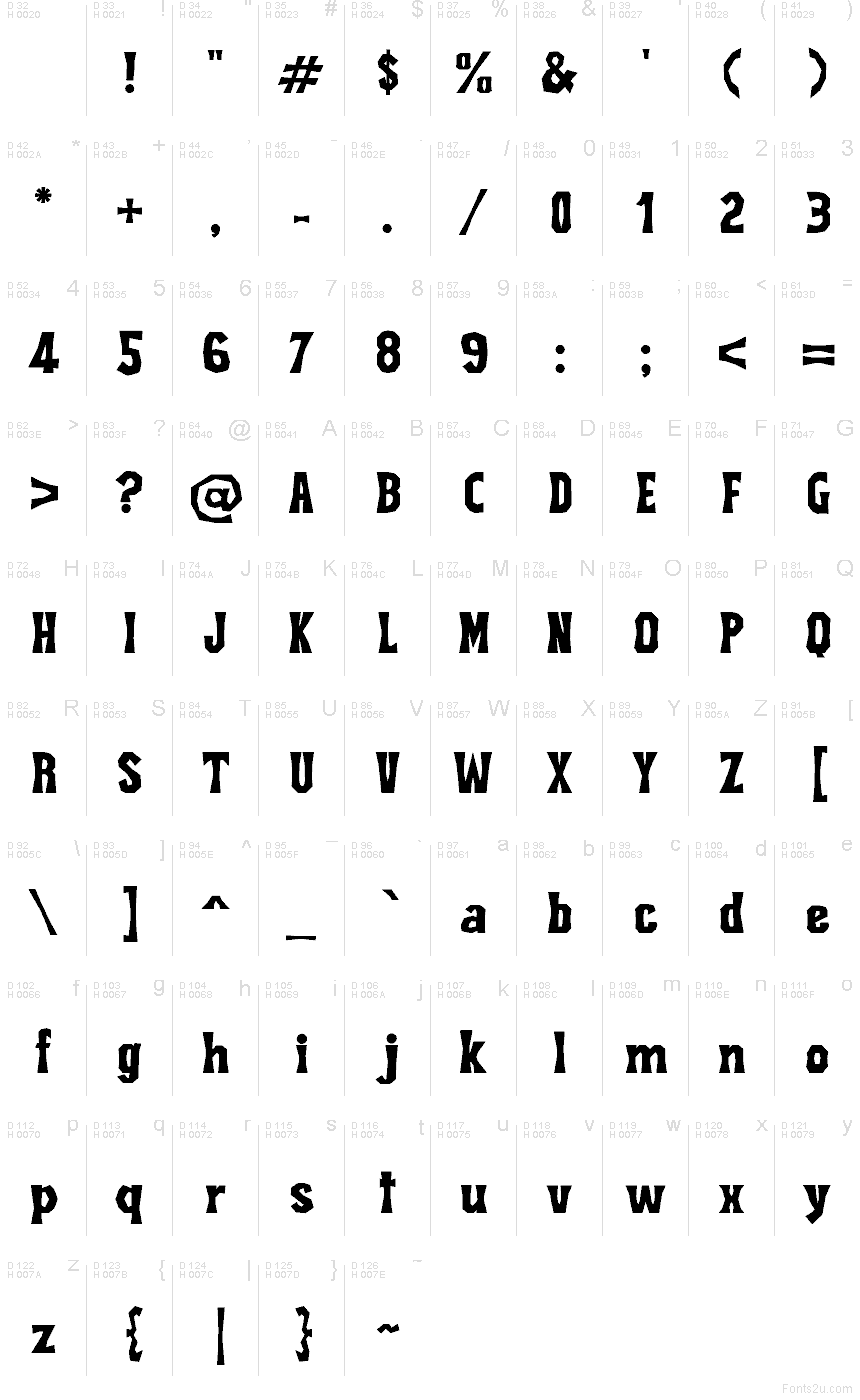
Cartoon in Adventure Regular
Cartoon in Adventure font by Galdino Otten Fonts is a free decorative display typeface that feels like a hand‑painted title from a Saturday-morning jungle cartoon. Chunky, slightly irregular letterforms give it a bouncy, adventurous rhythm, while the tight spacing keeps words looking like bold, inked logos rather than stiff text. There’s a playful roughness to the curves that suggests treasure maps, comics, and cliffhanger episodes.
Using Cartoon in Adventure, your headlines jump straight into story mode—great for kids’ book covers, comic titles, game logos, YouTube thumbnails, event posters, toy packaging, and birthday invitations. This free font shines at large sizes where its quirky silhouettes can really play. For body copy, pair it with a clean, simple sans serif and let Cartoon in Adventure handle only the loudest, most energetic text.